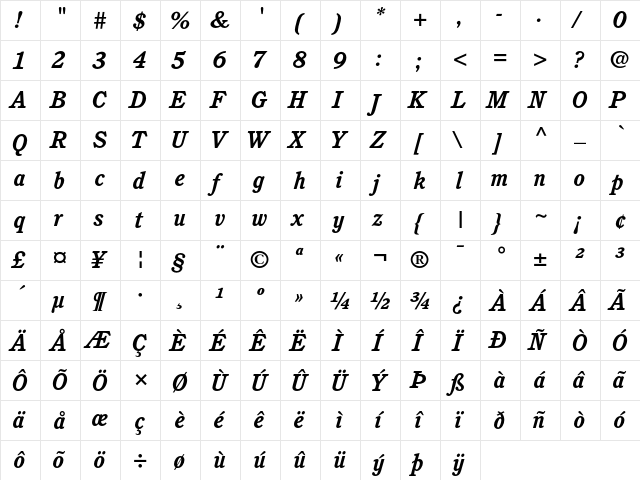
ITC Cushing Bold Italic Font Preview
Design Context for ITC Cushing Typeface
ITC Cushing offers clean, dependable letterforms without strong stylistic allegiance, making it a practical choice for designers who need flexibility. The dynamic lean of this cut emphasises speed and emphasis in any layout. The heavy weight commands attention and anchors typographic hierarchies.
Pro Tip: Try ITC Cushing for annotation and caption copy alongside an upright companion — the contrast in angle creates a dynamic but ordered typographic system.